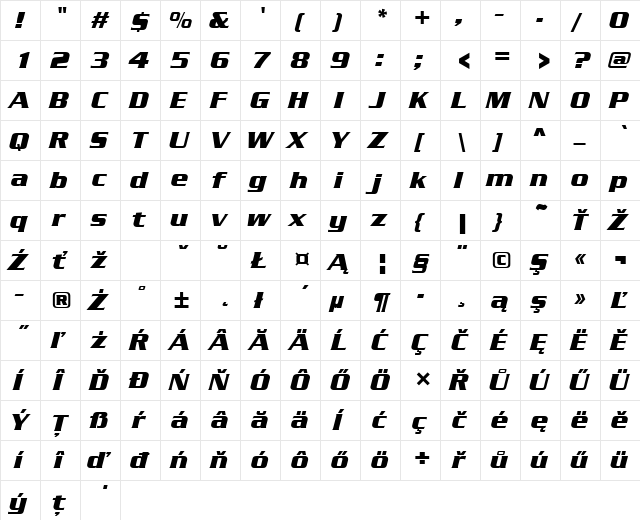
SerpentineDEEBol Italic
Design Context for SerpentineDEEBol Typeface
SerpentineDEEBol is a composed and adaptable typeface that performs quietly and consistently across a wide range of design contexts. The dynamic lean of this cut emphasises speed and emphasis in any layout.
Pro Tip: Try SerpentineDEEBol for annotation and caption copy alongside an upright companion — the contrast in angle creates a dynamic but ordered typographic system.